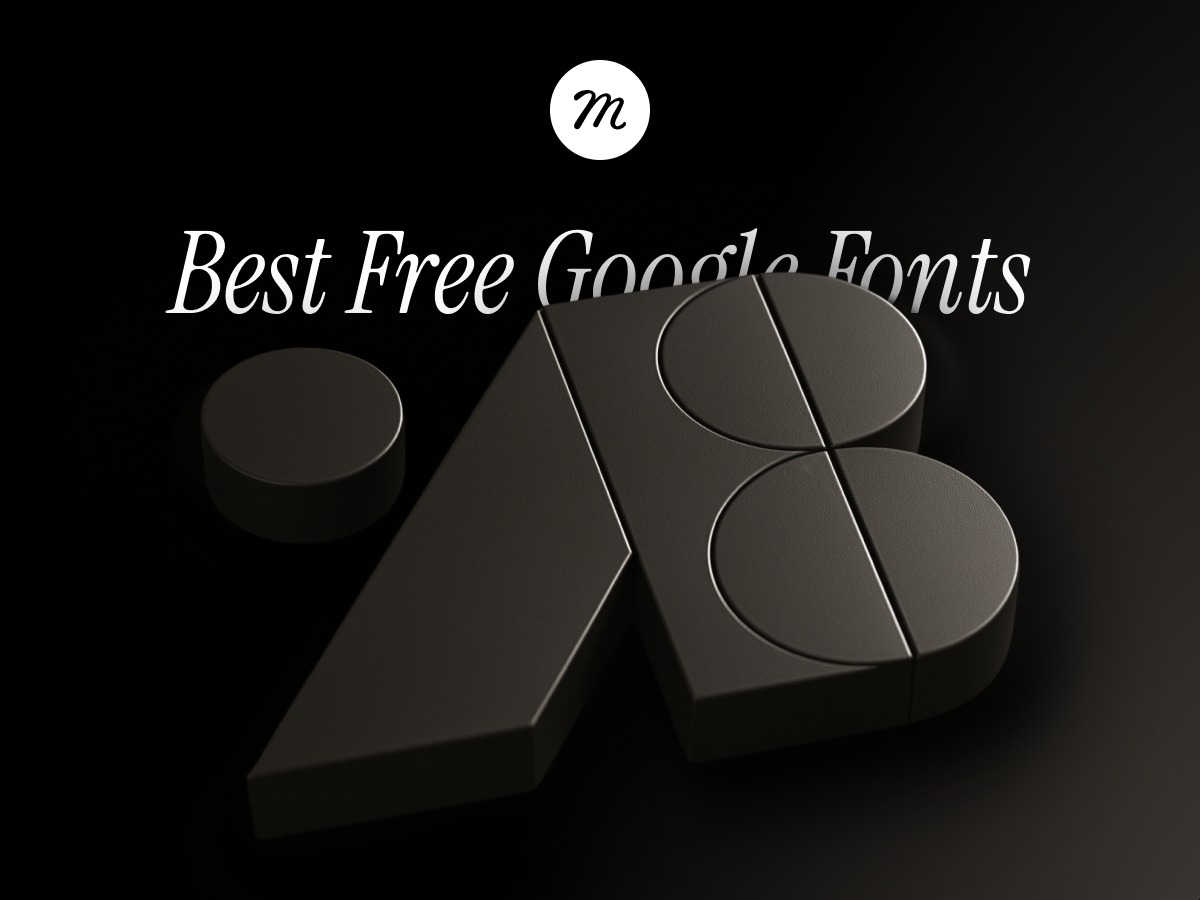
Best Free Google Fonts for 2026
Fonts shape how your message feels long before people start reading. The right typeface improves clarity, evokes emotion, and sets the tone for your brand. Google Fonts offers a vast library of free, high-quality families covering every design style, from timeless serifs to geometric sans-serifs and expressive scripts. Below are the top free Google Fonts to explore in 2026, organized by purpose and visual character. https://muz.li/blog/best-free-google-fonts-for-2026